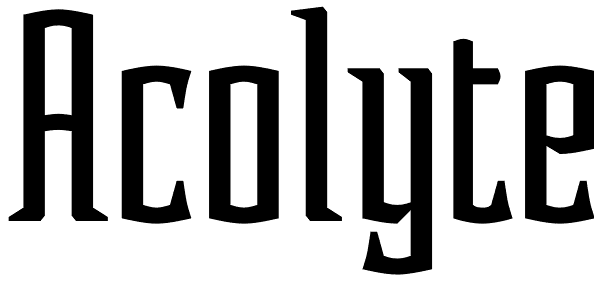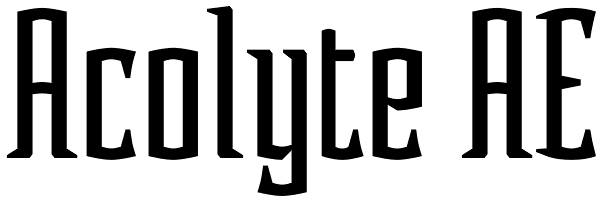
Acolyte
An elegantly refined typeface with a subtle wedge serif, the character shapes of Acolyte STF set a rhythm of light and dark like windows in a cathedral.Standing tall (as in condensed!) and respectful, Acolyte STF is aptly named as a companion to any...
Acolyte
Acolyte AE